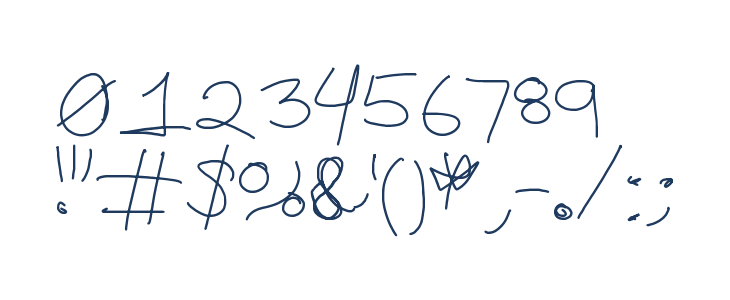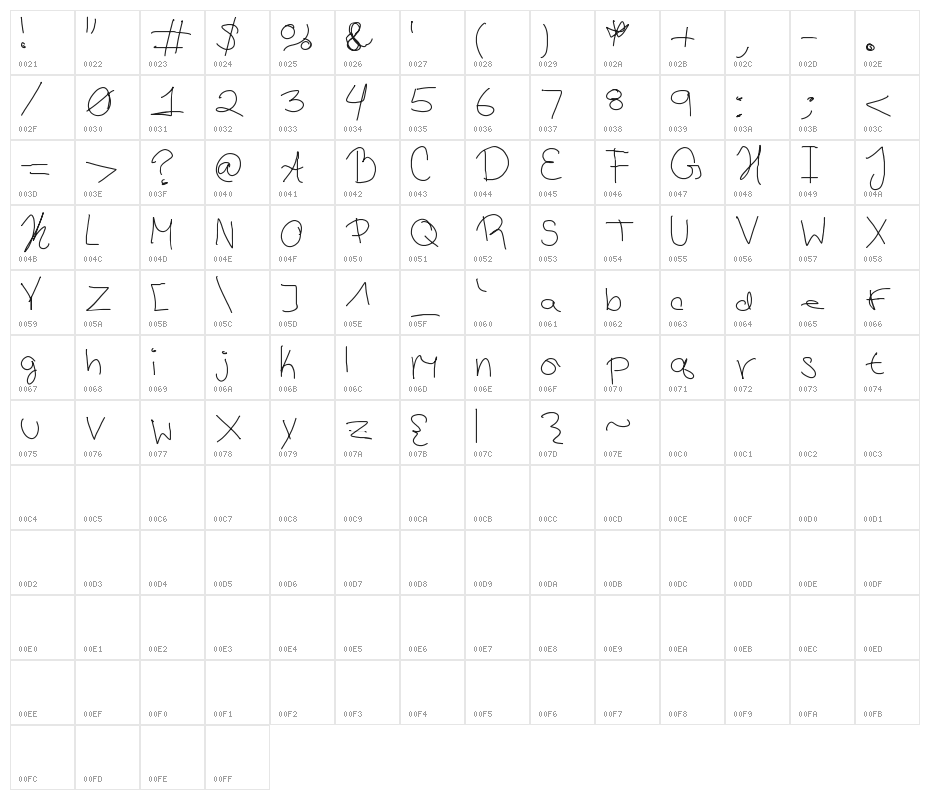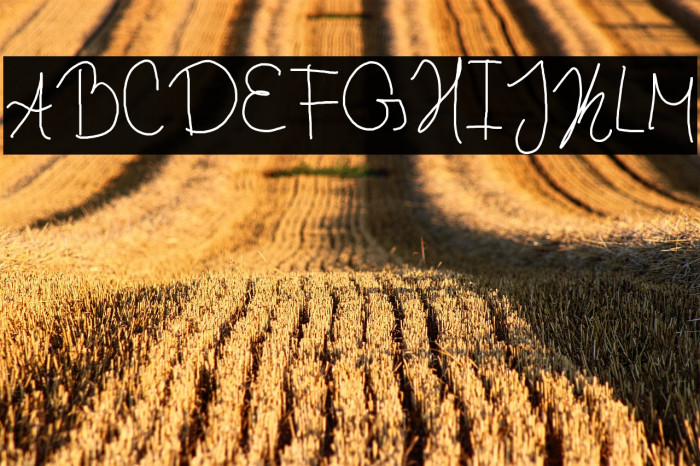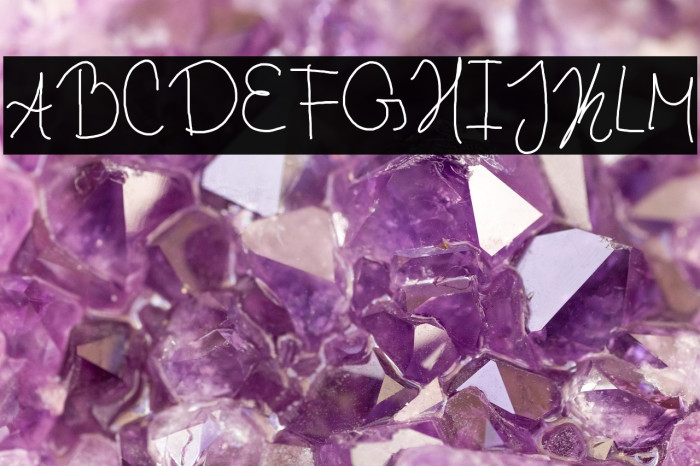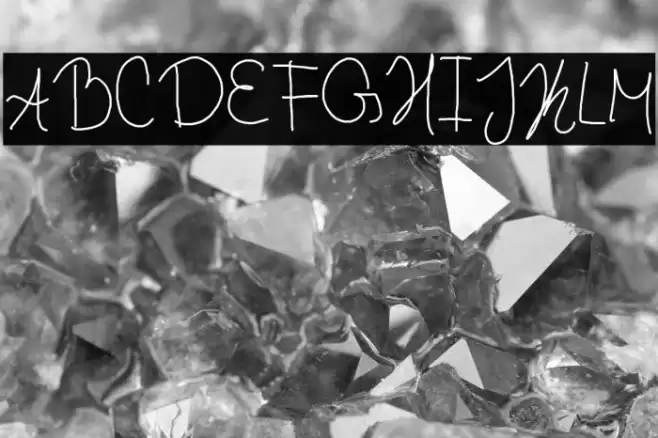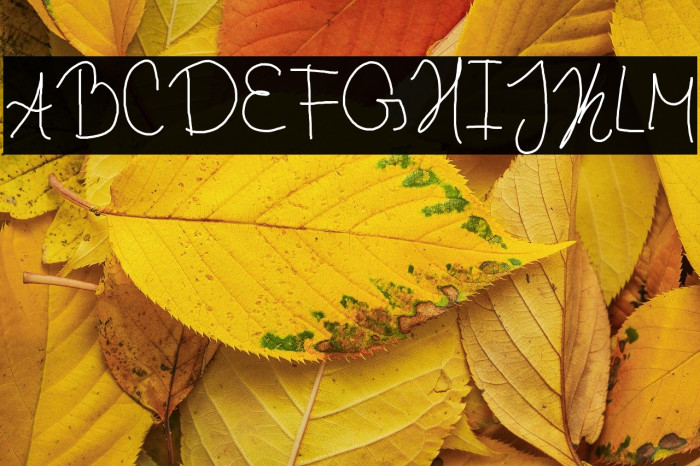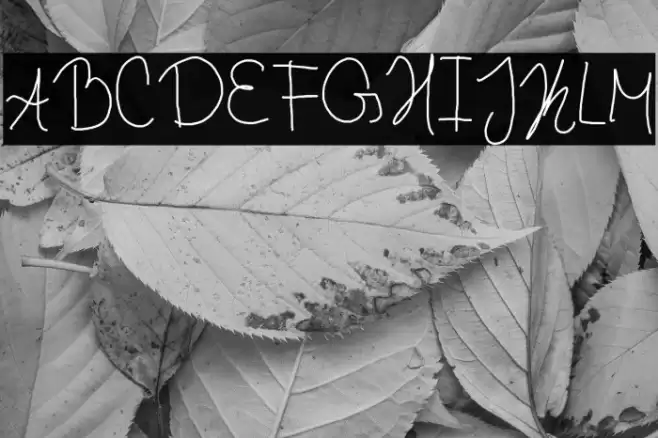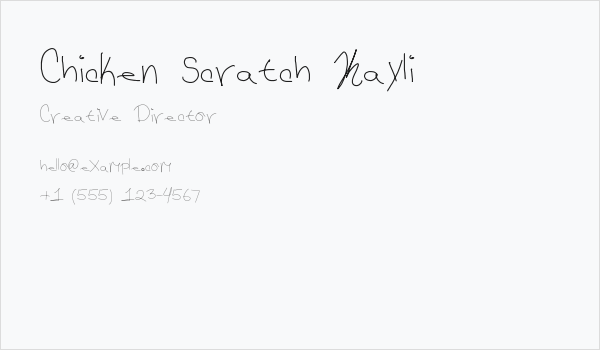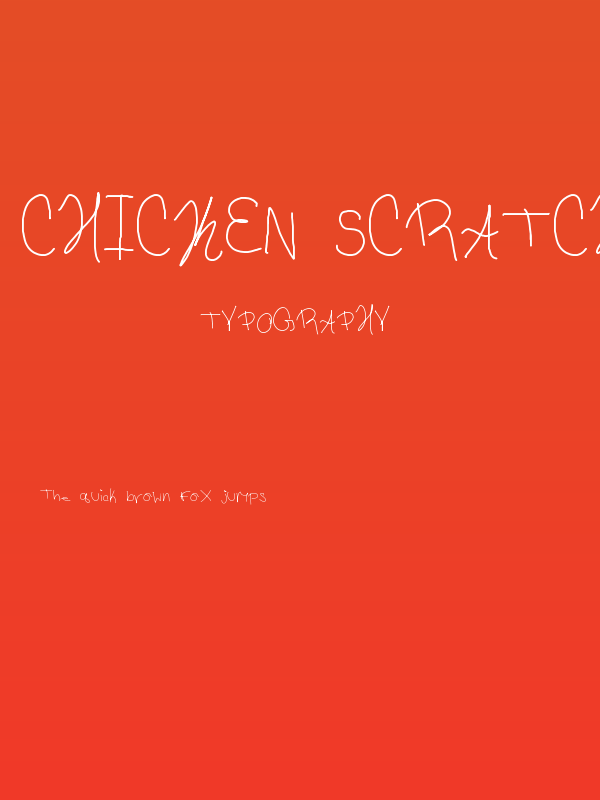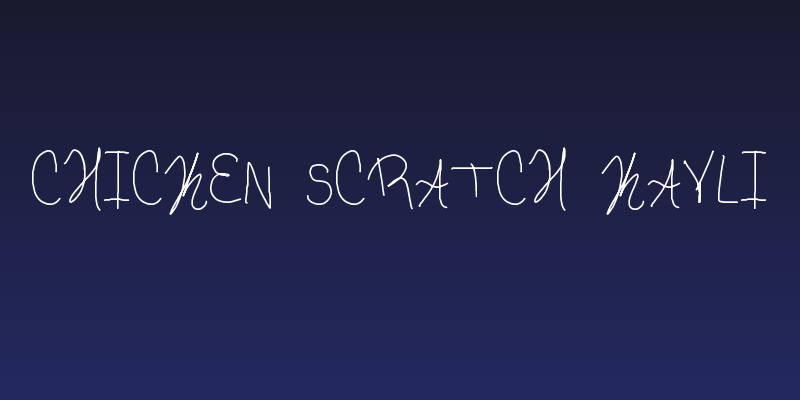
Chicken Scratch Kayli Font
Chicken Scratch Kayli Description
This font exudes a playful and whimsical charm, reminiscent of casual handwriting with a touch of spontaneity. The letters are irregular and freeform, capturing the essence of a handwritten note or a doodle. Each character has a unique flair, with varying stroke thickness and angles, giving it an organic and lively appearance. The uppercase and lowercase letters maintain a consistent style, while the numbers and special characters add to the font's quirky personality. This font is perfect for projects that require a personal, informal touch, such as greeting cards, children's books, or creative branding.
| Overall Style | Whimsical |
| Proposed Projects | Ideal for greeting cards, children's books, creative branding, and informal invitations. |